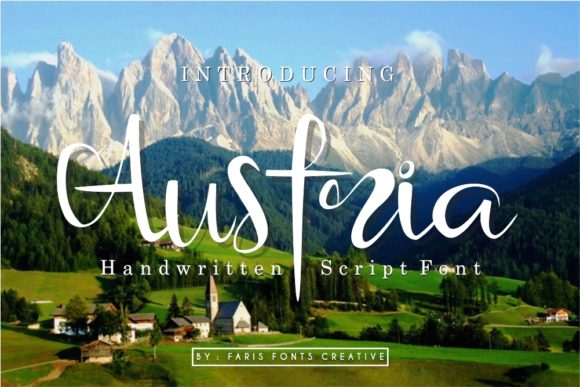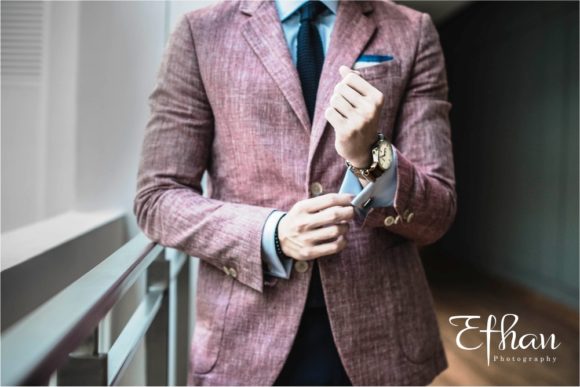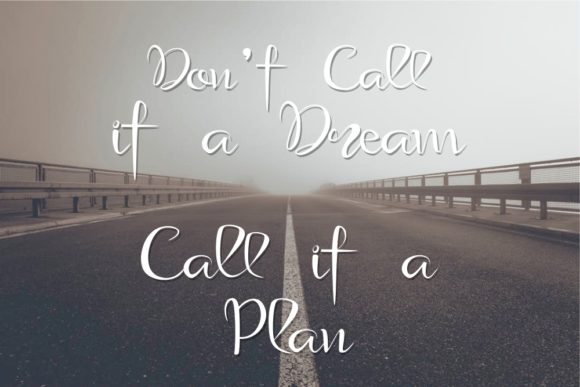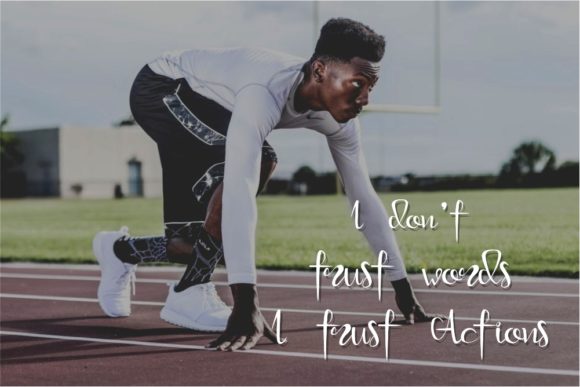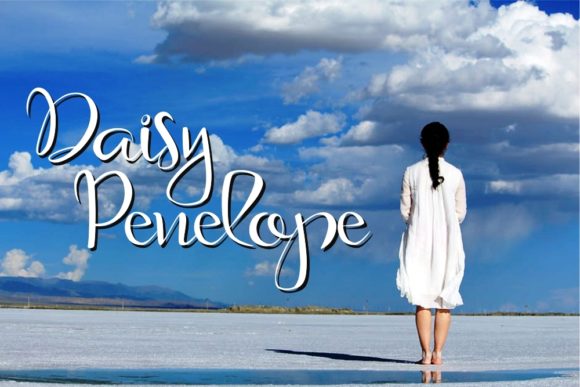
About Austria Font
Austria is a cute and casual handwritten font with an incredibly friendly feel. Whether you’re looking for fonts for Instagram or calligraphy scripts for DIY projects, Austria will turn any creative idea into a true piece of art!